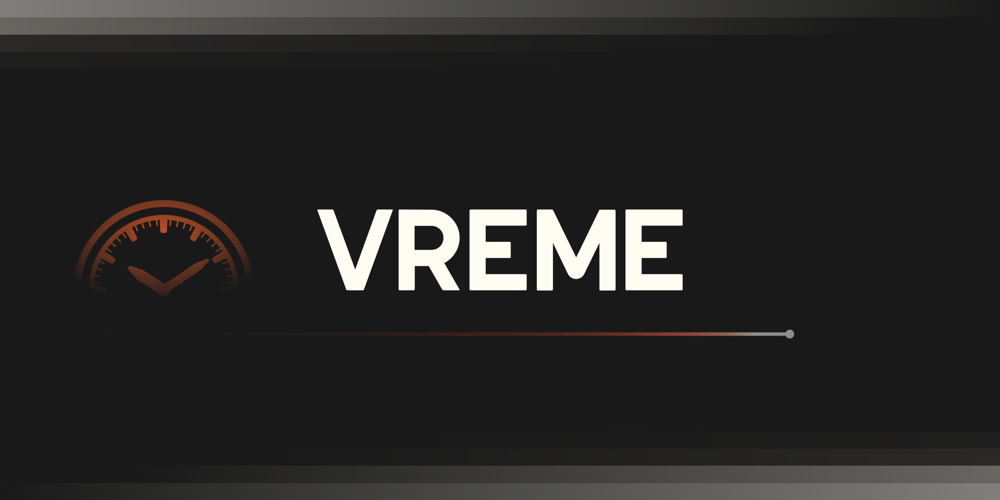
Vreme Font Family was designed by Luka Pejic and published by Wirtu. Vreme contains 1 styles and family package options. Vreme (eng. Time) is simple, clean and elegant font. Design is based with simple straight lines and elegant curves with slightly rounded edges for nice look. It could be used for different purposes.